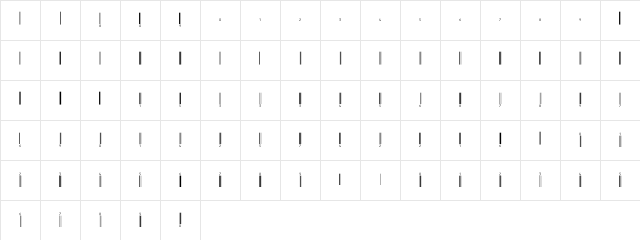
Code-EAN-HH Normal
Design Context for Code-EAN-HH
Code-EAN-HH uses fixed-width spacing throughout, giving it the structured, systematic character associated with coding environments and technical documentation.
Pro Tip: Use Code-EAN-HH with slightly increased line-height for extended reading - fixed-width spacing can feel dense in longer passages without extra breathing room.